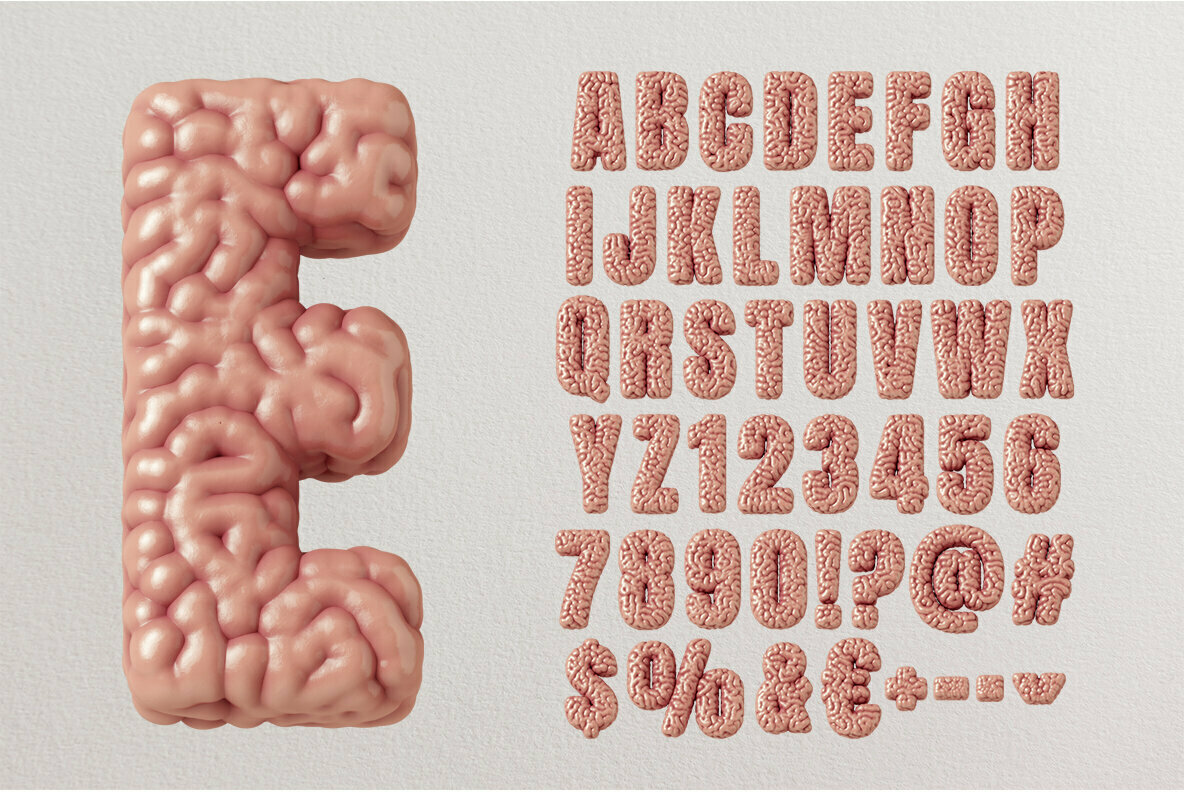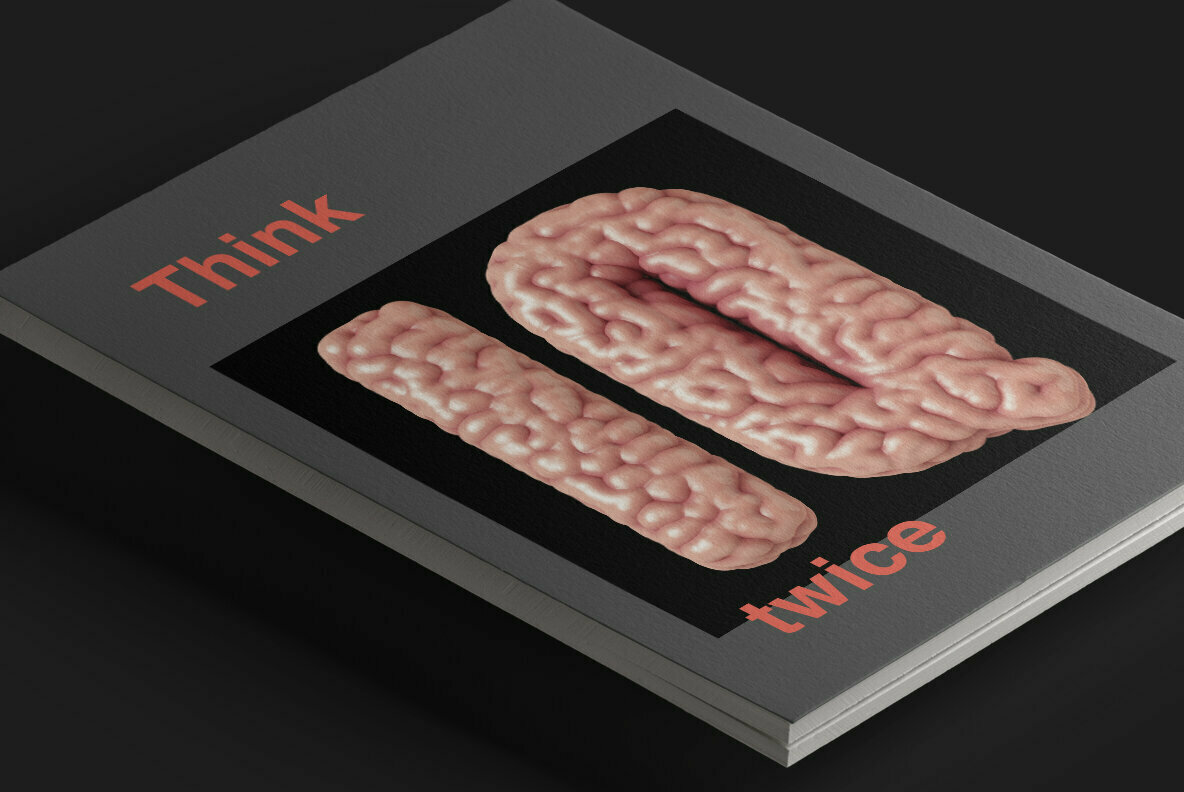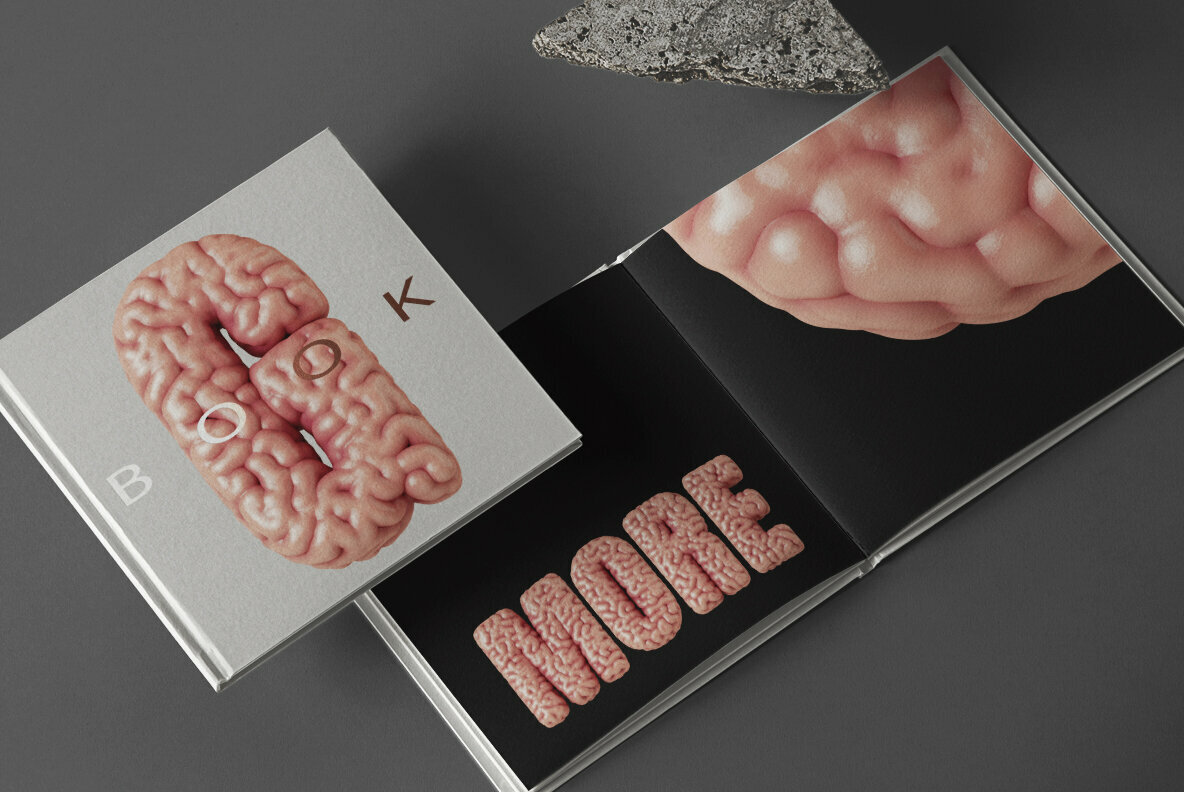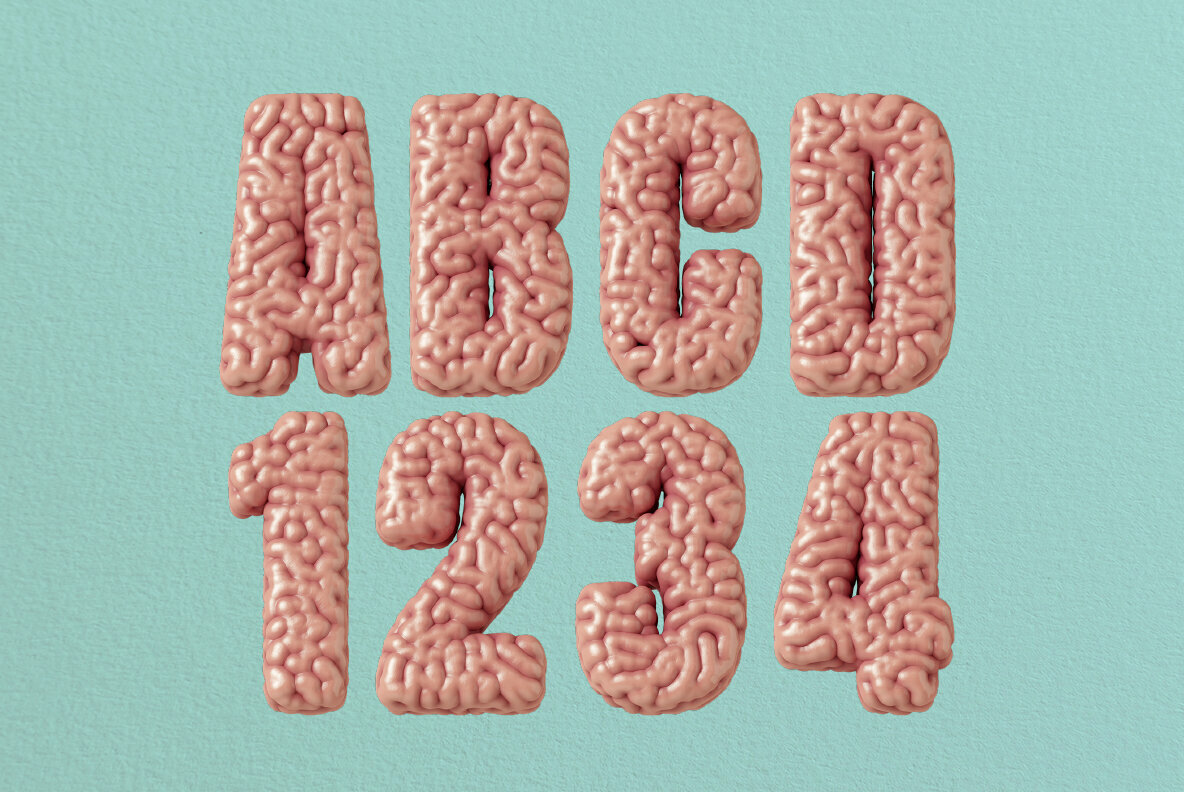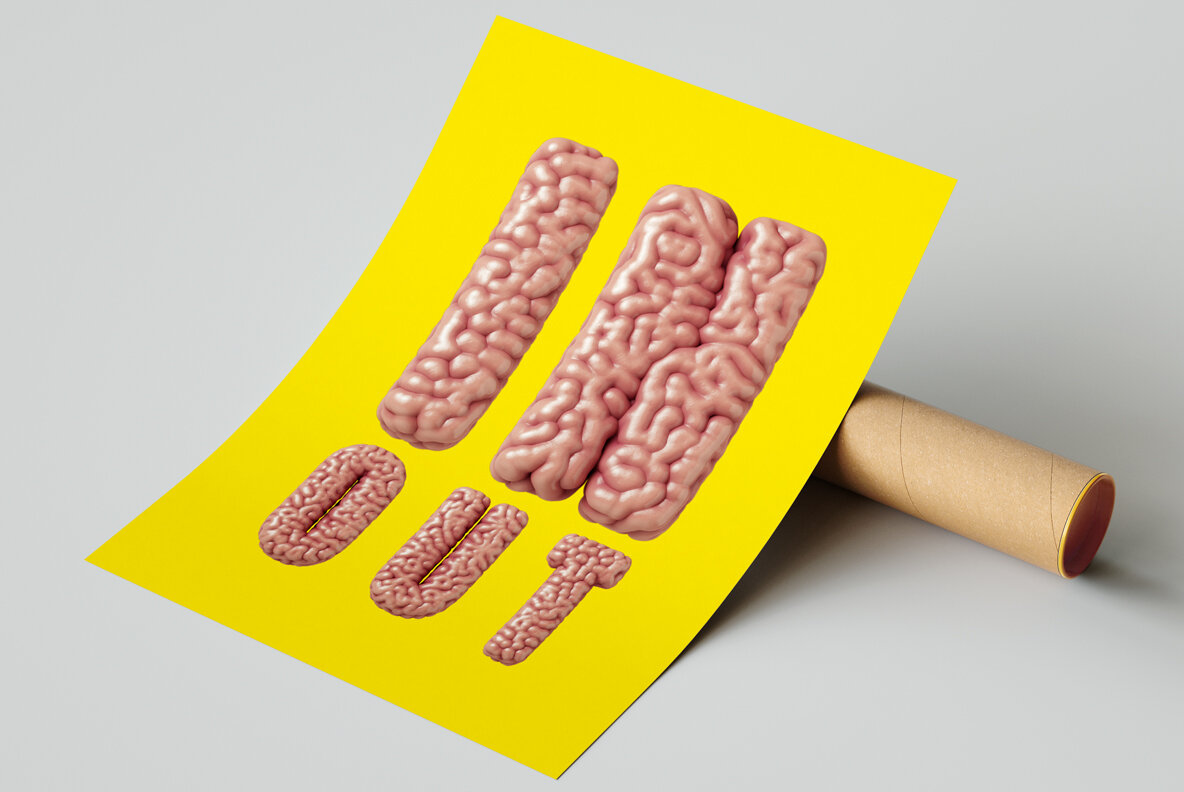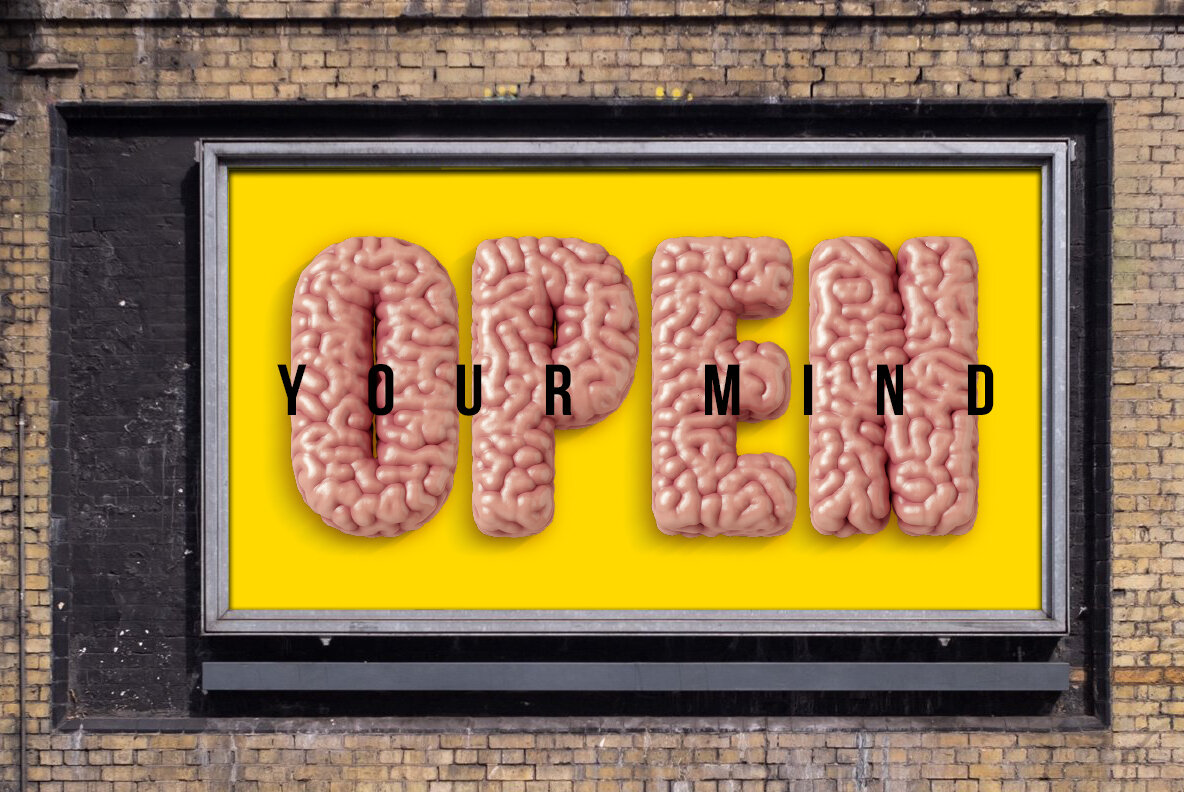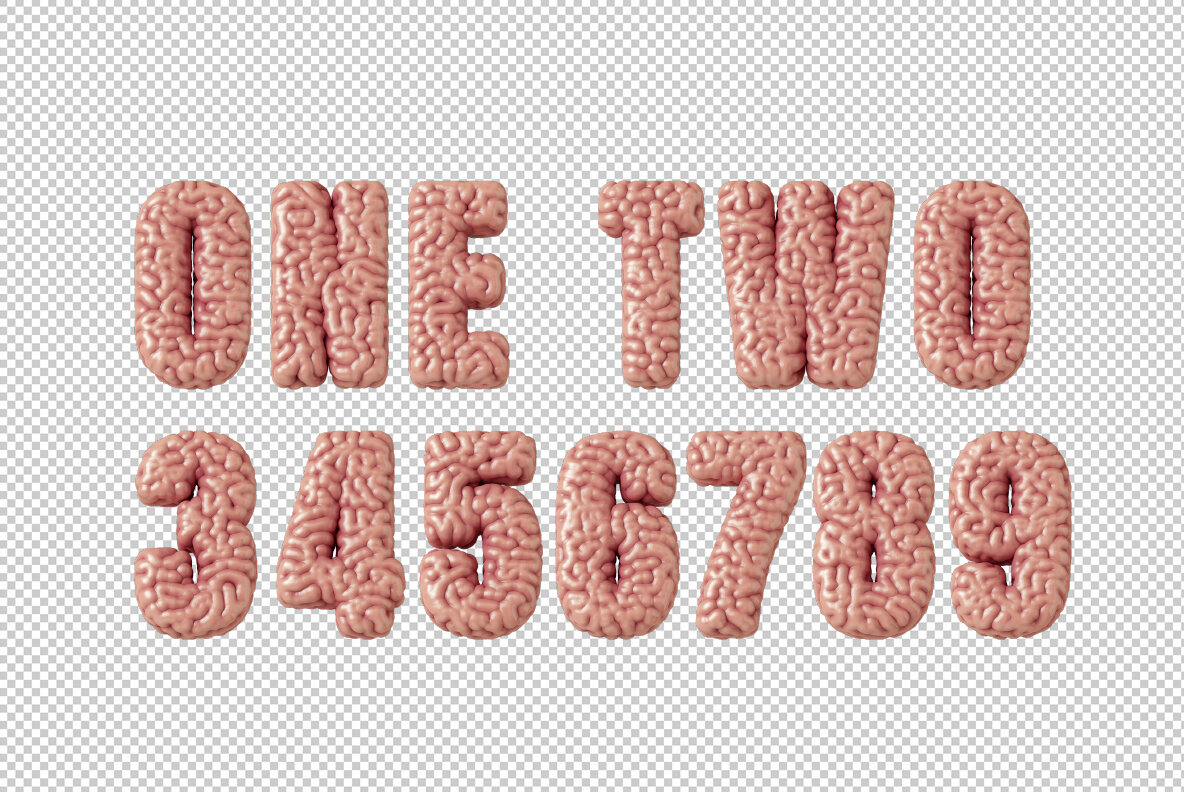
Brain SVG Font is a kind reminder about the necessity of using your brain while doing your design or whatever. This unique typeface looks really smart and our advice is to rely on this handmade font. Use your brain and trust it!
Brain SVG Font. A high definition OpenType-SVG font with built-in 3D.
Others : ! ? $ € & % @ # + - ~ ˇ, .